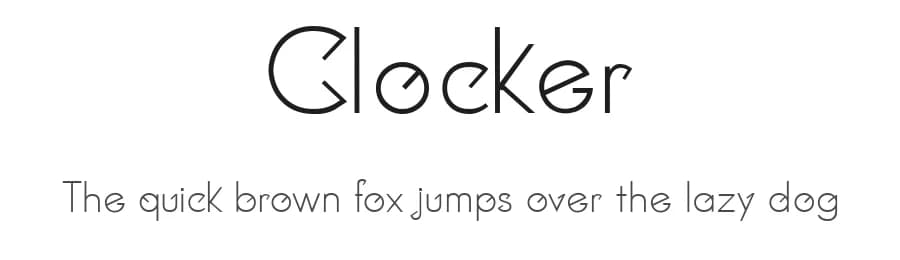
About Clocker Font
Font by Tipografia Leone
Clocker Font is a versatile sans-serif font that works for both headings and body text. Pair it with a contrasting serif or slab serif font to add visual interest and a clear distinction between titles and body copy.
Clocker Font